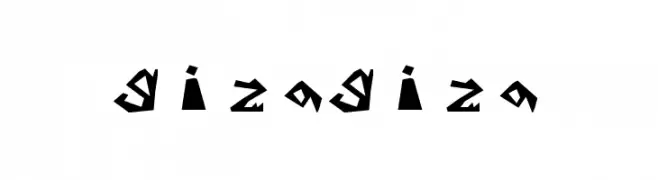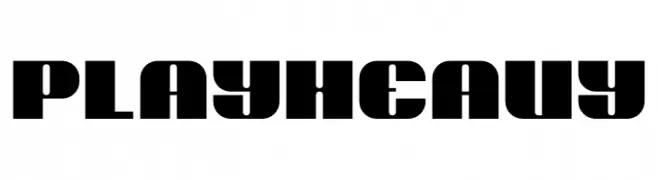
• Black Larch PERSONAL USE ONLY
( Fonts by Måns Grebäck )
A bold, dynamic script font with strong slants and thick strokes.
• Pages Grotesque Black Demo
• gizagiza
A bold, angular font with a geometric and dynamic style.
• Instalove Diary
A flowing, handwritten font with elegant, elongated strokes and a casual sophistication.
• MilagrosScript
An elegant script font with flowing, interconnected letters and ornate swashes.
• MyloveScript
An elegant and sophisticated script font with flowing curves and ornate details.
• Hawken Personal Use
A bold, angular font with a geometric and striking design.
• Play Heavy
A bold, modern display typeface with thick, blocky letters and high contrast.
• Chriselda
An elegant script font with flowing, cursive letters and a sophisticated flair.
• Ricefield
A bold, elegant script font with dynamic, flowing characters.